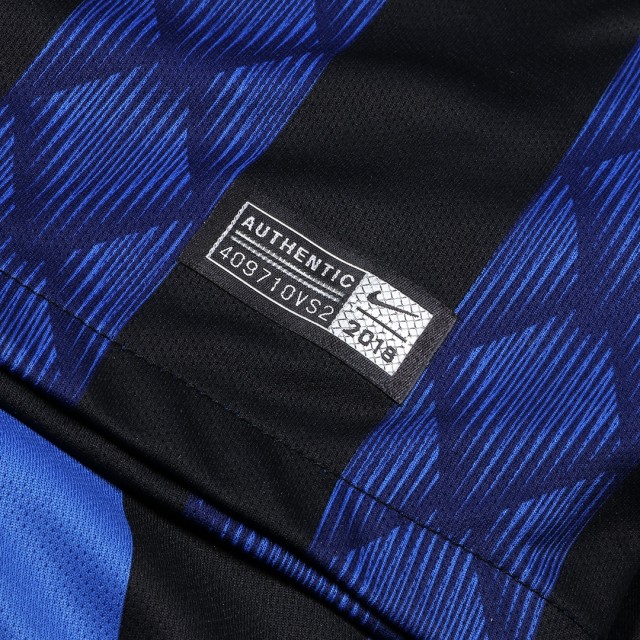
Inter Milan this week not only revealed their new home kit for the 2018-19 campaign, the club also released a brand-new jersey typeface for the 2018-2019 season. The new Inter Milan 2018-2019 kit font will be used in all competitions.
Inter Milan 2018-2019 Jersey Names & Numbers
A unique style, the new Nike Inter 2018-19 jersey font comes with remarkable letters and numbers to round off the stylish look of the kit.
On the bottom of Inter Milan's 2018-19 kit numbers is a monochromatic version of the club crest.